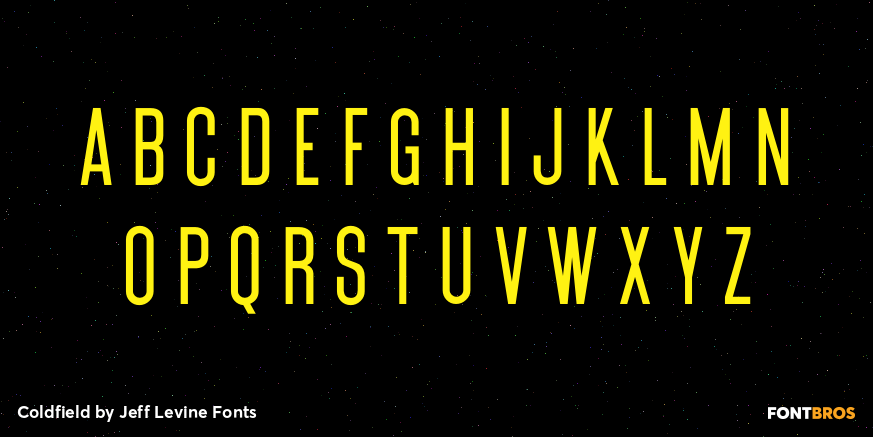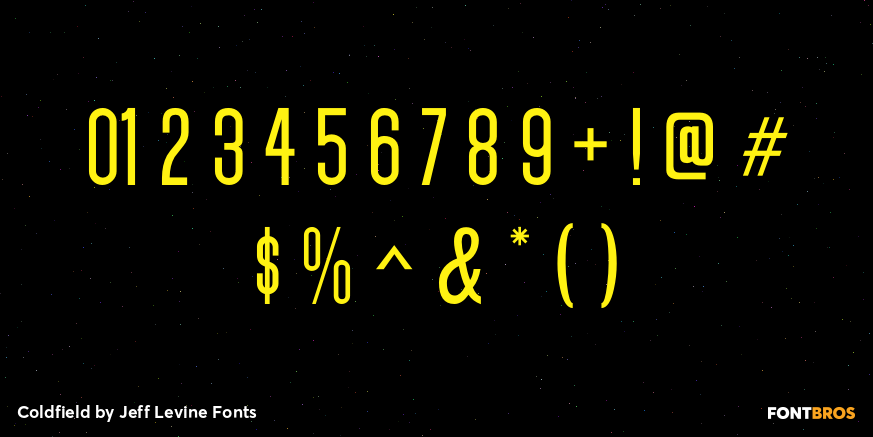
Coldfield
Coldfield JNL is the revival of an old wood type font from Jeff Levine. Clean and easily readable at different point sizes, it is an excellent companion to Twelve Oaks JNL and Ingomar JNL.